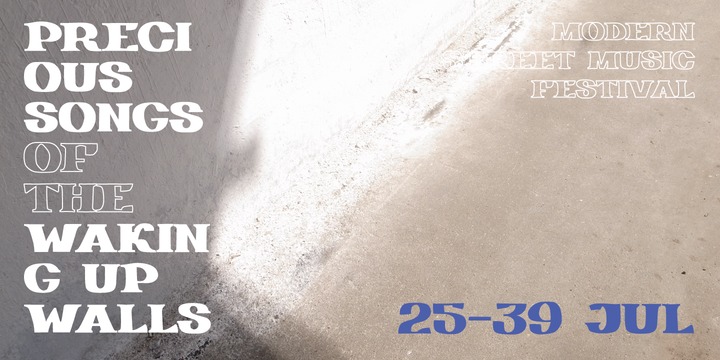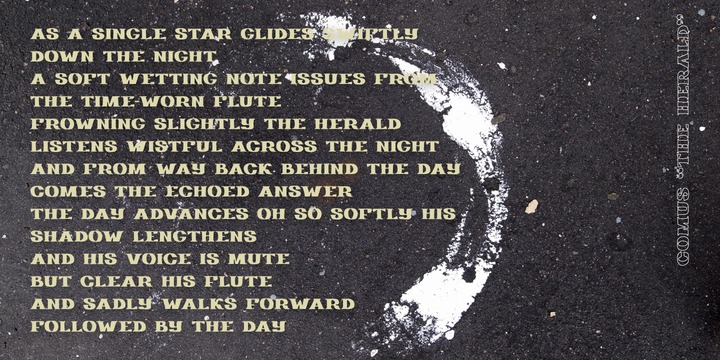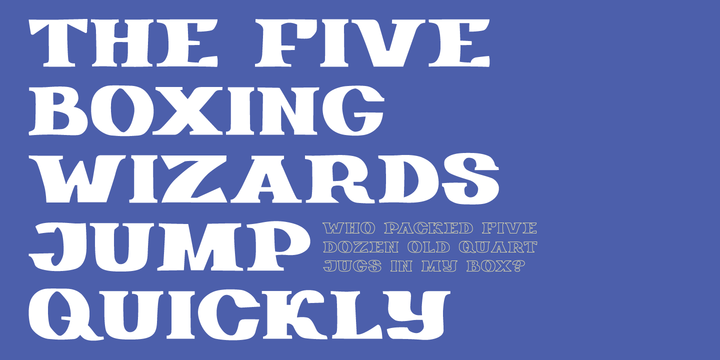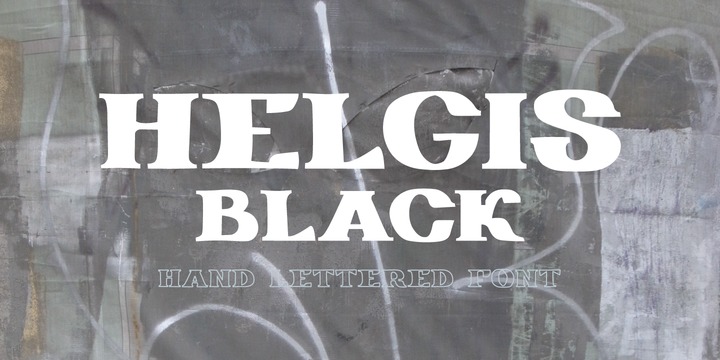
Helgis Black is a hand crafted font, inspired by album covers of progressive and psychedelic rock bands of 70s.
It is perfectly suited for covers (books, albums), posters and games.